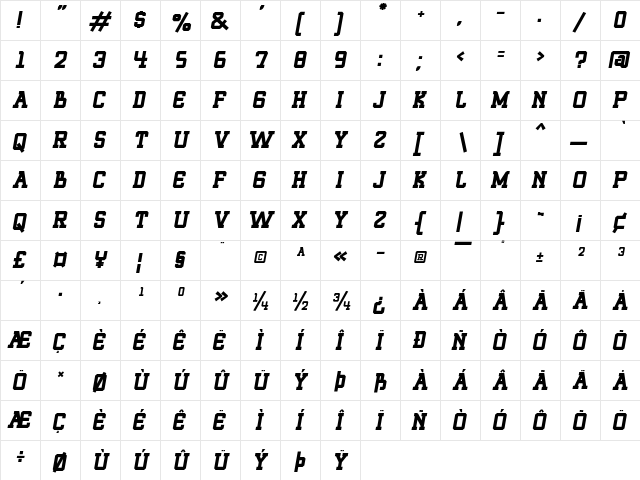
ROQUERO Italic
| Foundry | FallenGraphic |
| Designer | Vava Aryanto |
Design Context for ROQUERO Typeface
ROQUERO offers clean, dependable letterforms without strong stylistic allegiance, making it a practical choice for designers who need flexibility. Its italic angle brings a sense of urgency and motion to the letterforms.
Pro Tip: Try ROQUERO for annotation and caption copy alongside an upright companion — the contrast in angle creates a dynamic but ordered typographic system.